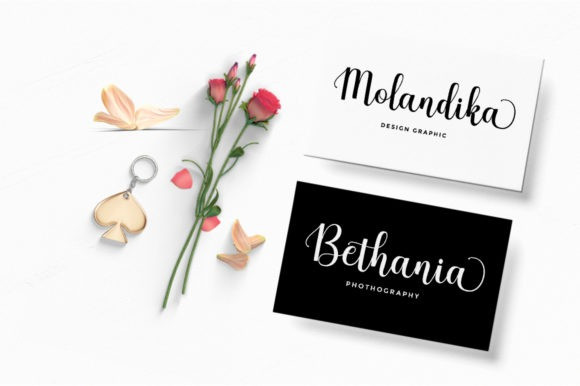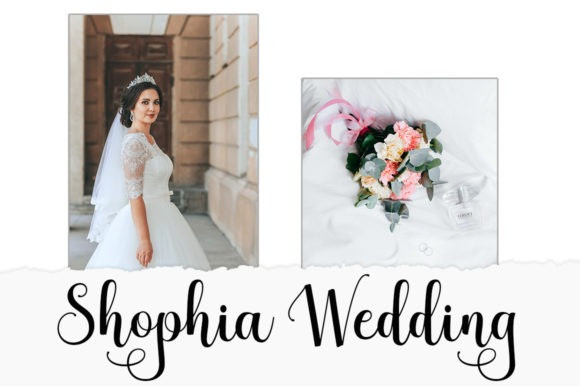
Butterland Script Font
The Butterlant is a smooth and legible script.
Its classical, elegant look makes it perfect for branding, marketing, advertising, invitation and more!